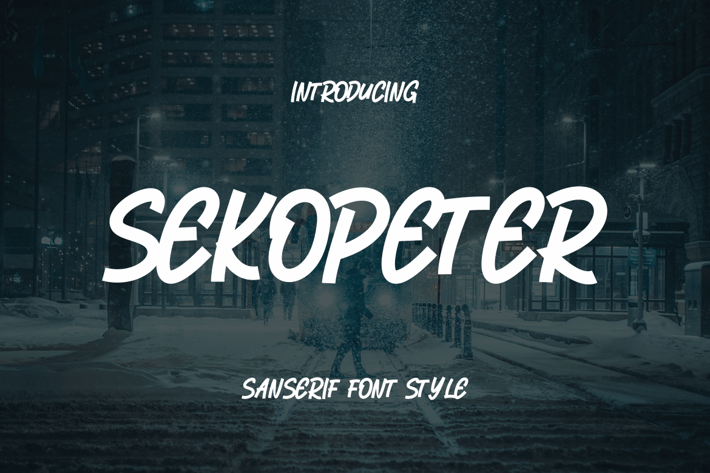
Sekopeter Font.
Introducing our new product the name is Sekopeter Font. Modern Decorative Fonts that feels beautiful classy, elegant, and modern. This font is perfectly suited for a wide variety of projects, such as signature, stationery, logo, wedding, typography quotes, magazine or book cover, website header, branding, packaging design, and more. Also, fashion-related branding or editorial design displays both masculine and feminine qualities.